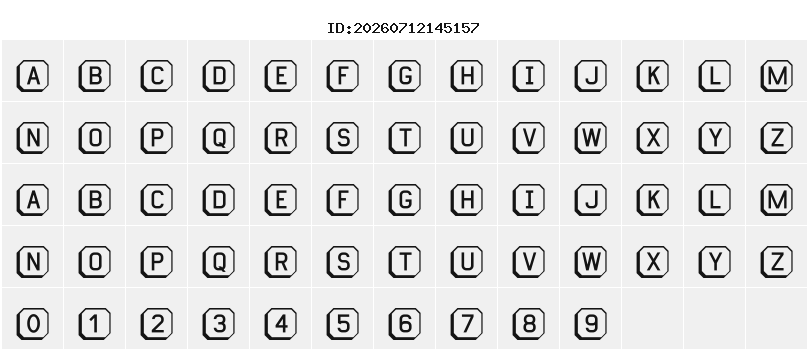
RatCapsPC3D Preview
• Font Name: RatCapsPC3D
• Full Font Name: RatCapsPC3D
• PostScript Name: RatCapsPC3D
About RatCapsPC3D.ttf
RatCapsPC3D.ttf is a modern, elegant sans-serif font designed for ultimate readability and visual harmony. Perfect for branding, headlines, web design, and print materials.